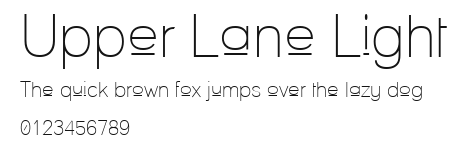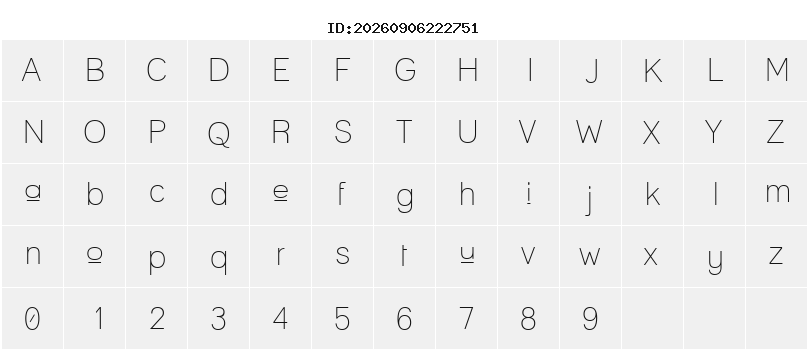
About Upper Lane Light.ttf
Upper Lane Light.ttf is a modern, elegant sans-serif font designed for ultimate readability and visual harmony. Perfect for branding, headlines, web design, and print materials.